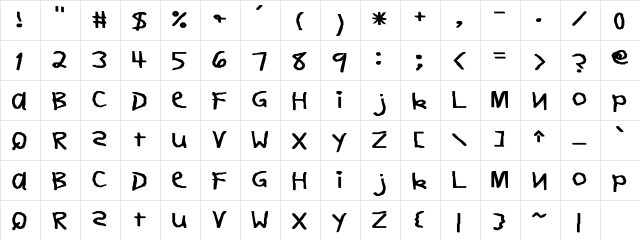
DearTeacher-Normal Bold Bold
Design Context for DearTeacher-Normal Bold Typeface
DearTeacher-Normal Bold is a composed and adaptable typeface that performs quietly and consistently across a wide range of design contexts. The heavy weight commands attention and anchors typographic hierarchies.